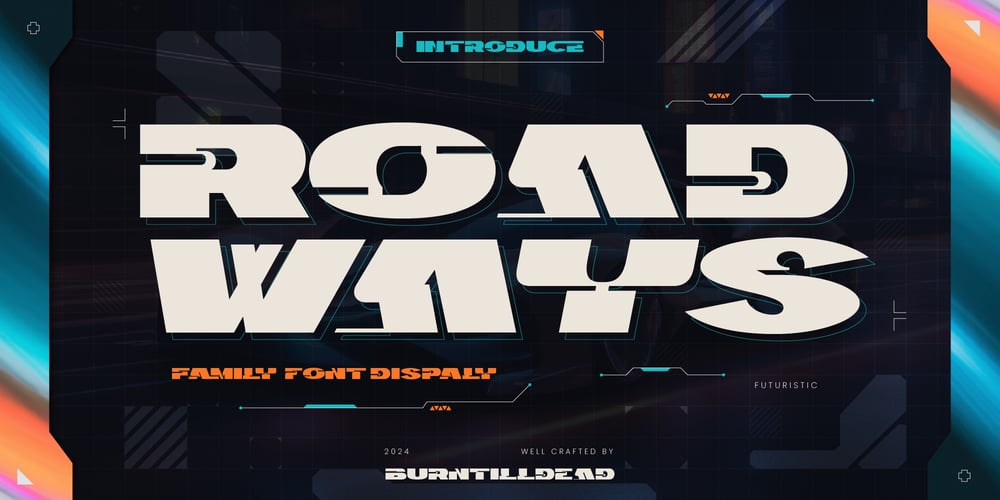
BTD Roadways Font Family was designed by Eric Kurniawan and published by Burntilldead. BTD Roadways contains 10 styles and family package options. Roadways brings a futuristic and modern impression with minimalist and unique geometric shapes. This font gives touch of aesthetic forward-thinking and digital or technology era. Roadways offering some font style so its a great choice for events, fashion-related content, posters, magazine and any other design project. Be the attention and stand out in this digital era with Roadways!Features: Roadways A-Z set Numbers Punctuation Ligature